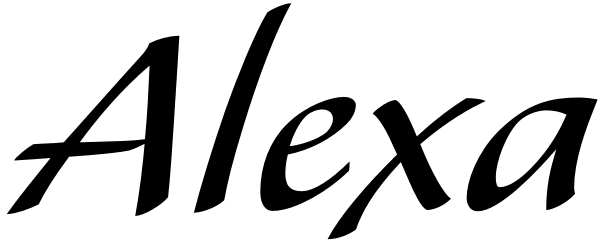
Alexa
Americas most famous carver of inscriptions, including those at the John F. Kennedy Memorial in Arlington National Cemetery, John Benson modeled this friendly, casual script after his own handwriting and gave it the name of his beloved niece...